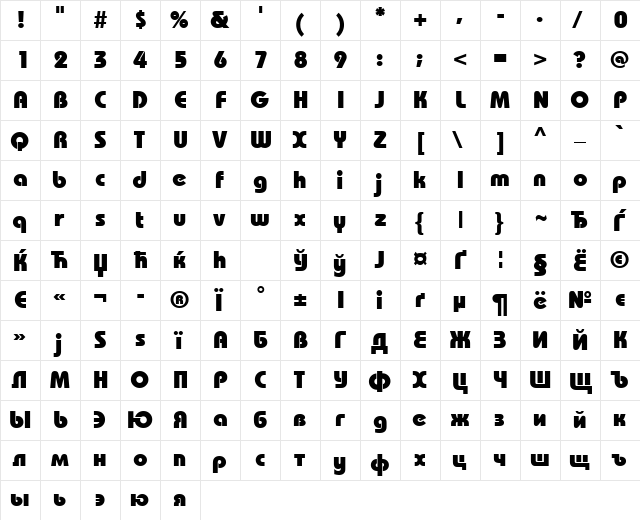
BauhausHeavyCTT Regular
Design Context for BauhausHeavyCTT Typeface
BauhausHeavyCTT offers clean, dependable letterforms without strong stylistic allegiance, making it a practical choice for designers who need flexibility.